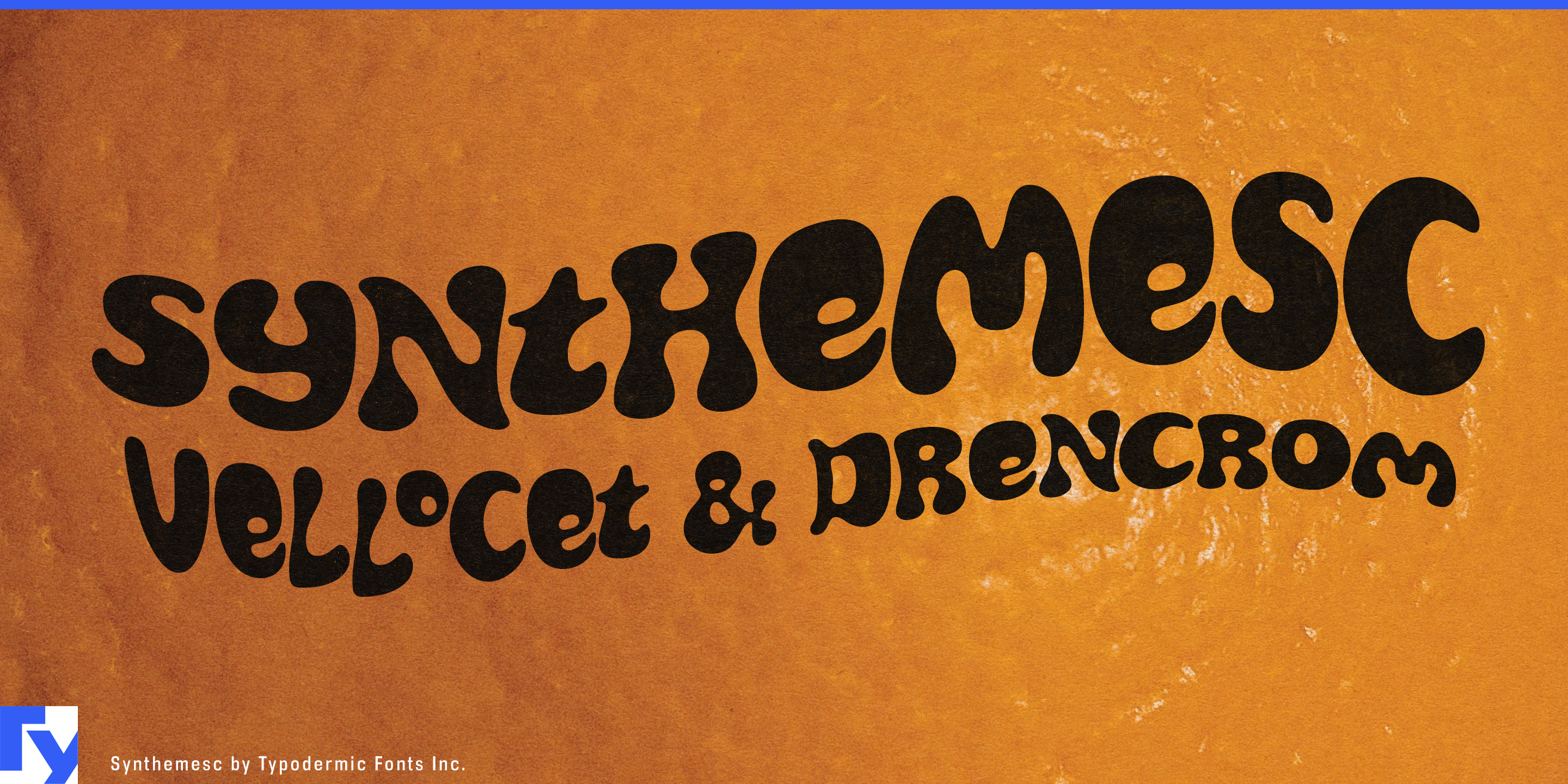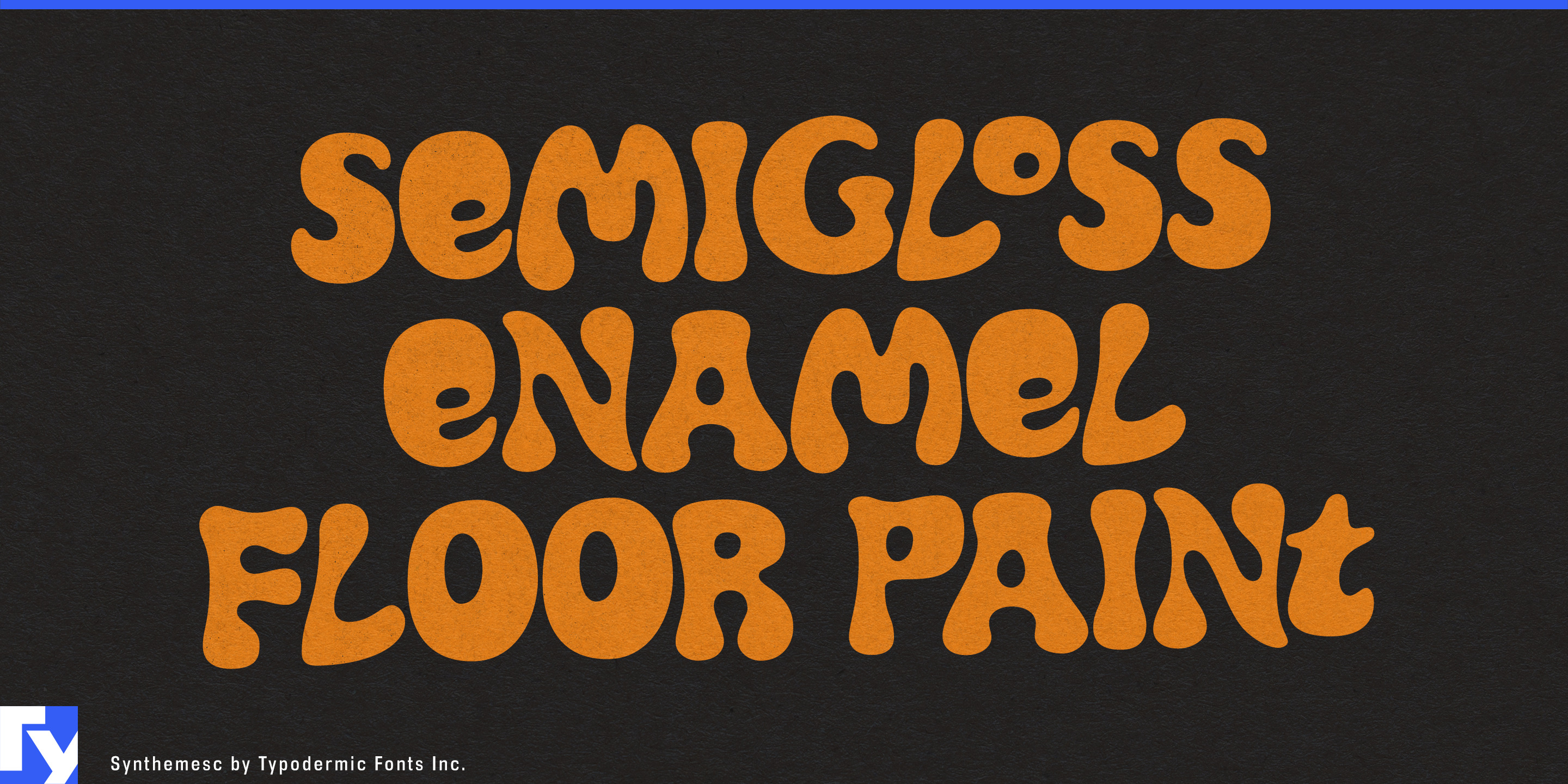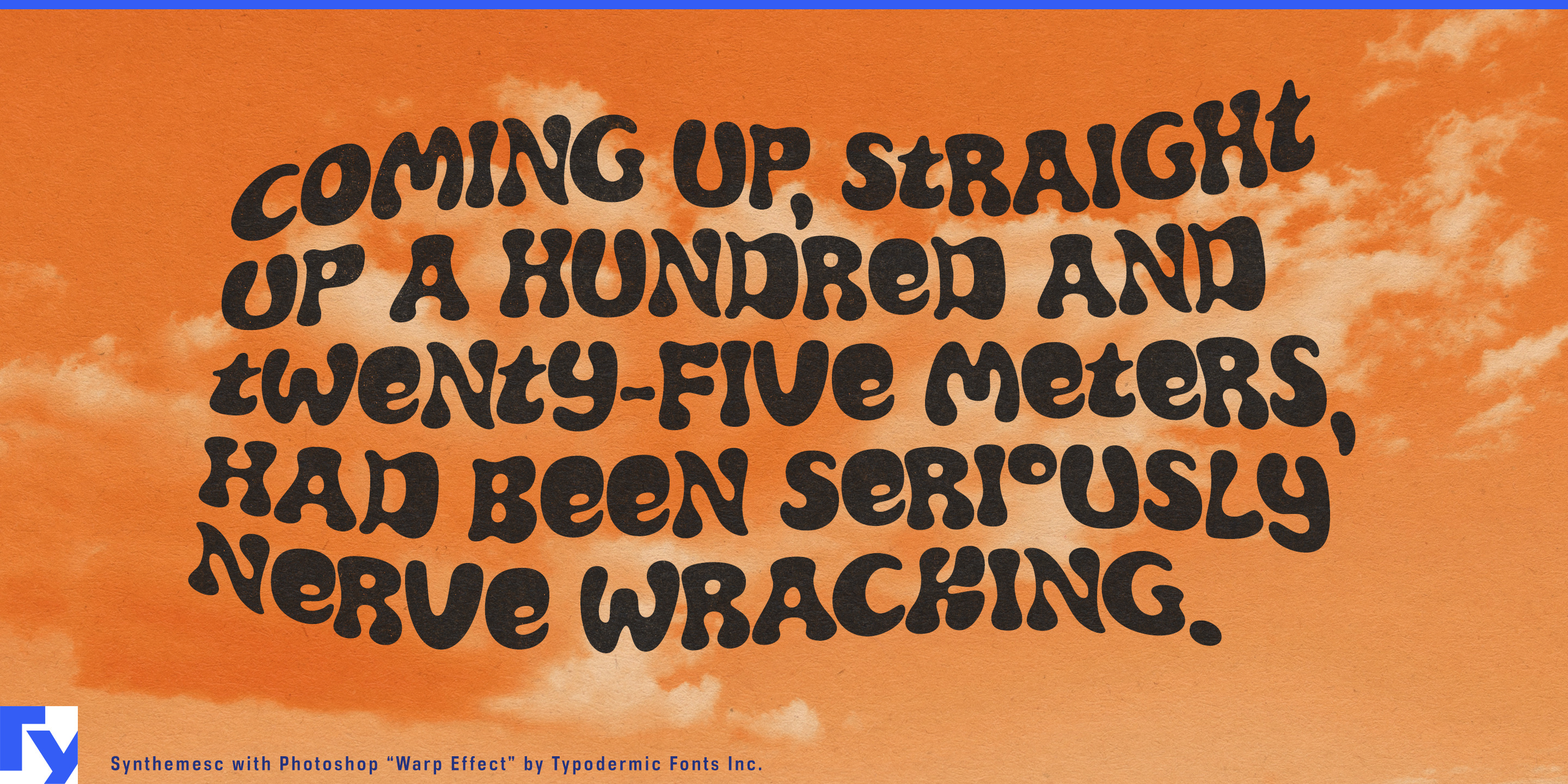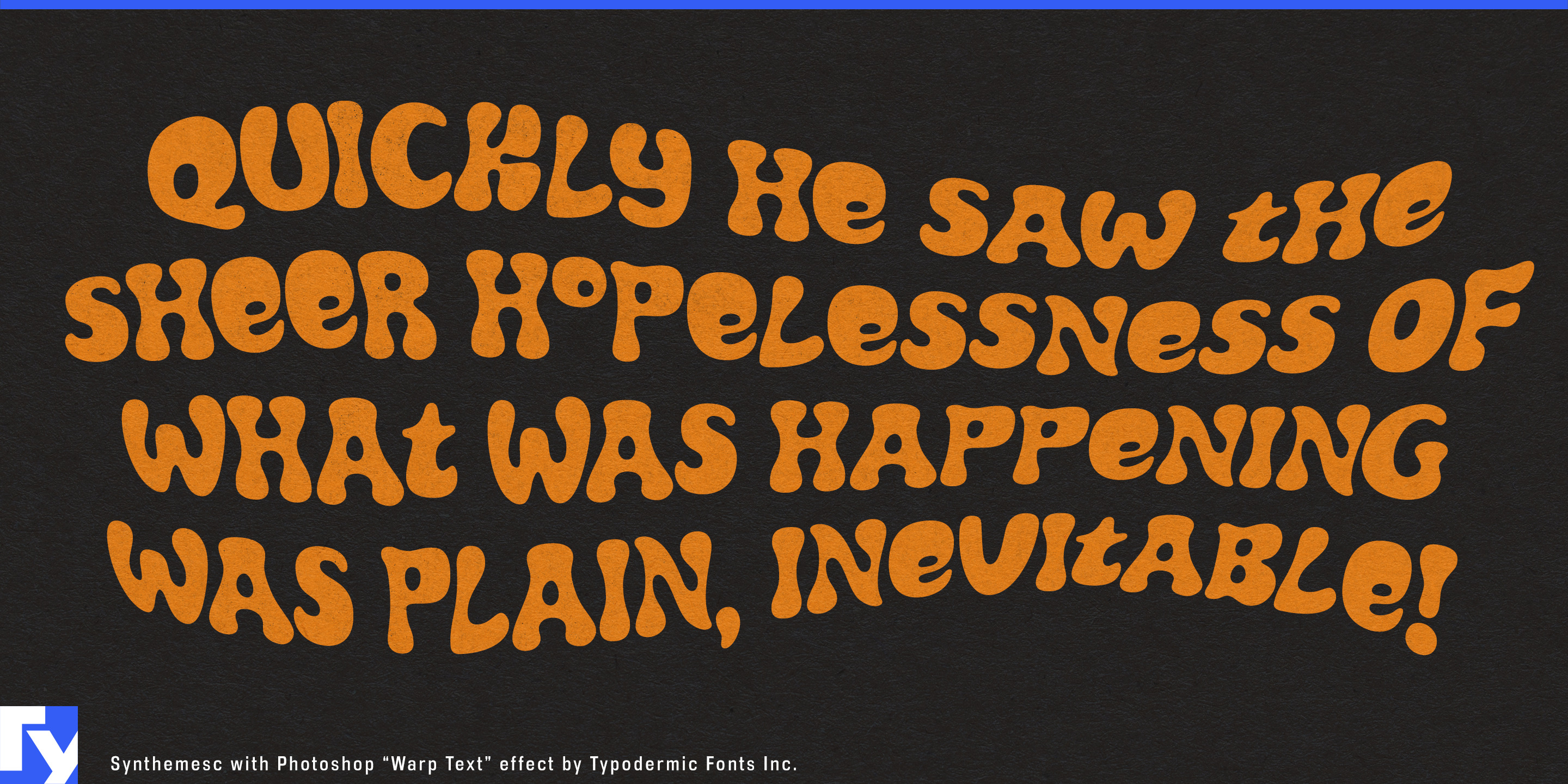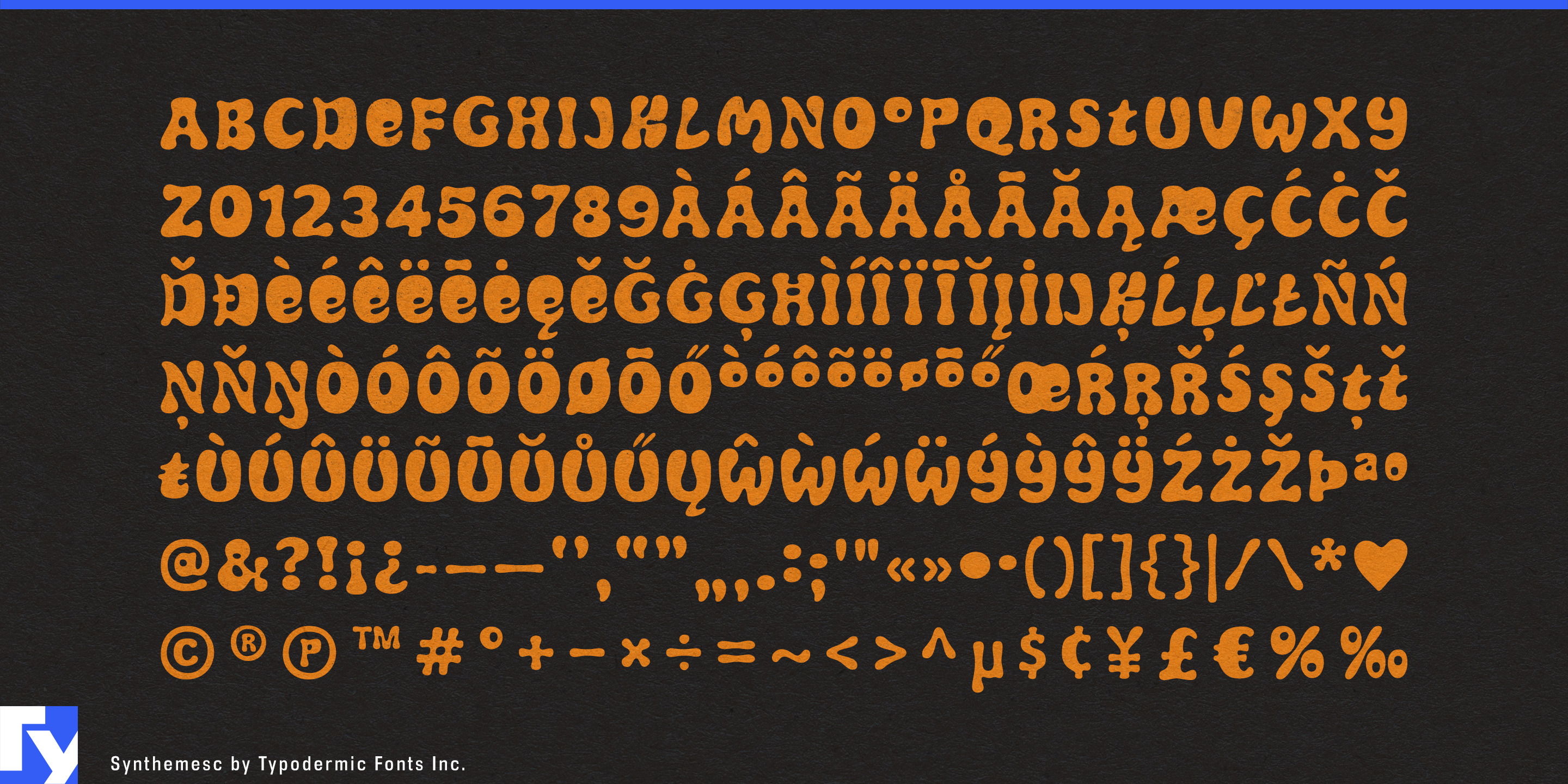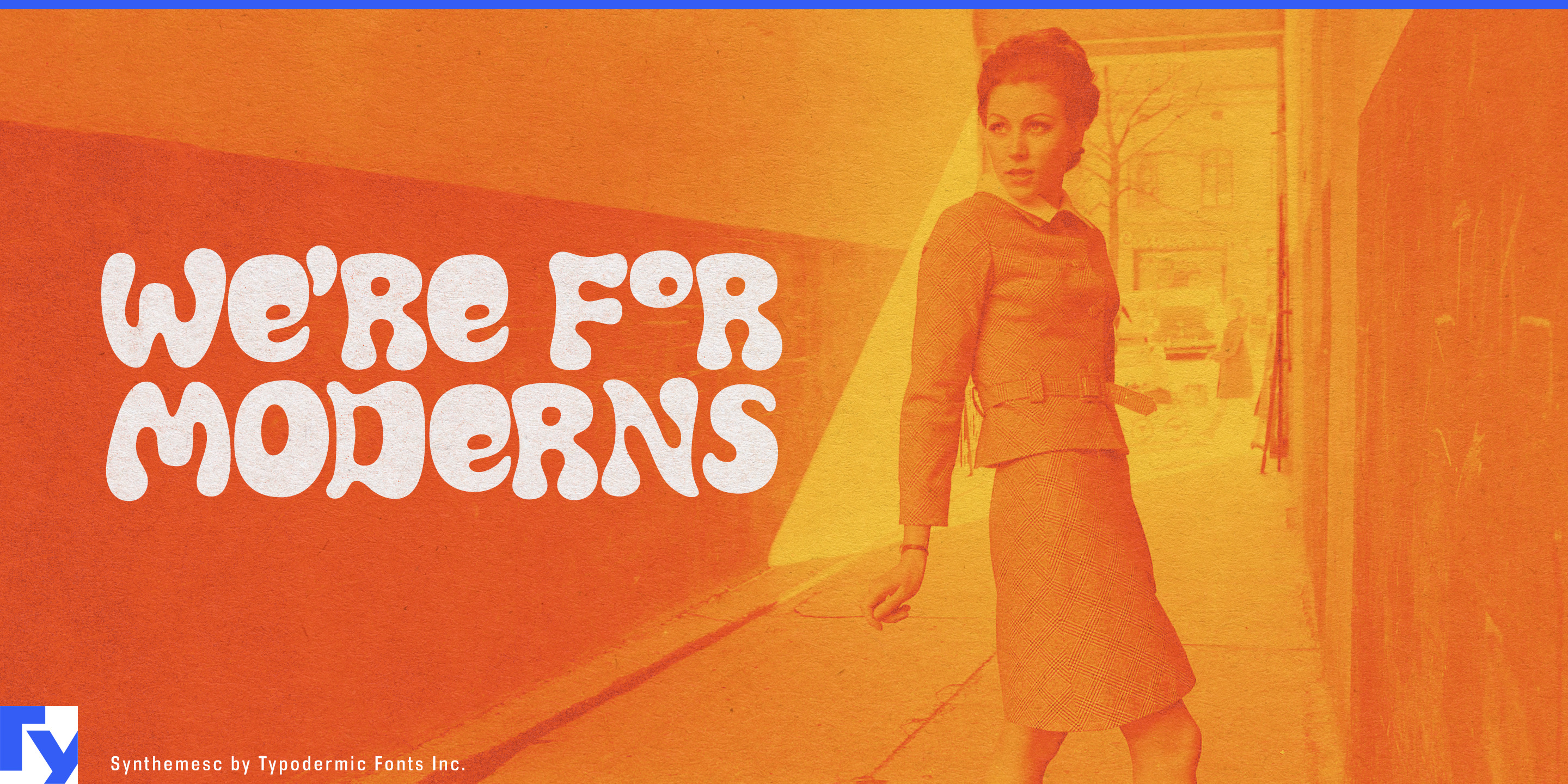
Synthemesc
Synthemesc turns words into soft, distorted shapes that can function almost like illustrations. Its swollen strokes, pinched joins, irregular counters, and organic curves suit contemporary psychedelic design particularly well: fluorescent colour, surreal photography, glossy 3D forms, liquid textures, strange fruit, and exaggerated flavour graphics. The result can feel playful, synthetic, biological, or hallucinatory depending on what surrounds it.
Food and drink give those shapes especially useful work to do. Craft soda, sparkling drinks, fruit beverages, kombucha, botanical tonics, energy drinks, cocktail mixers, and limited-edition flavours can treat the product name as part of the package artwork. Synthemesc can ripple through a label, curl around an illustration, or sit inside a dense field of colour without losing its distinctive silhouette.
Candy and snack packaging pushes the same idea further. Gummies, sour sweets, chocolate, cereal, ice cream, frozen treats, cookies, popcorn, and other flavour-driven products can use Synthemesc when the lettering itself should feel soft, strange, and slightly edible. Its forms work especially well for products aimed at teens and adults, where playful packaging can become surreal without becoming childish.
Strong flavours provide another natural setting. Hot sauce, chili crisp, spicy snacks, unusual condiments, fermented products, and experimental food brands often build their identities around intense colour and exaggerated sensory cues. Synthemesc gives those products an eccentric organic shape that can carry just as much flavour as the surrounding illustration.
Restaurants and hospitality can use the same visual language selectively. Dessert bars, ice-cream shops, cocktail bars, colourful casual restaurants, and experimental bakeries can use Synthemesc for names, menu headings, flavour specials, signs, merchandise, and campaign graphics. It works best when the typography is allowed to become part of the atmosphere rather than merely organize information.
The forms also respond well to further manipulation. Warping, bending, stretching, and animating Synthemesc can make lettering follow the edge of a package, swell through a motion graphic, or change shape across a family of flavours. Because distortion is already present in the alphabet, these transformations feel like extensions of the design rather than effects applied afterward.
Music offers another strong territory, especially neo-psychedelic, electronic, experimental pop, and visually ambitious festival work. Artist names, album and single titles, tour campaigns, merchandise, streaming artwork, projected graphics, and animated promos can push Synthemesc toward liquid, biological, or synthetic imagery while keeping the typography recognizable.
Synthemesc originally grew from the hand-cut lettering of the Korova Milk Bar in A Clockwork Orange. That source explains some of its strange organic construction, but the finished typeface has proved much broader than a film-reference novelty. Its Adobe-era life has shown how naturally those forms adapt to contemporary psychedelic graphics, especially when designers distort, recolour, animate, and combine them with modern image-making techniques.
Synthemesc is an all-caps display face built for concentrated jobs: brand names, flavours, titles, short phrases, package headings, and lettering that is expected to behave partly as an image. Psychedelia is the territory; the decade is optional.